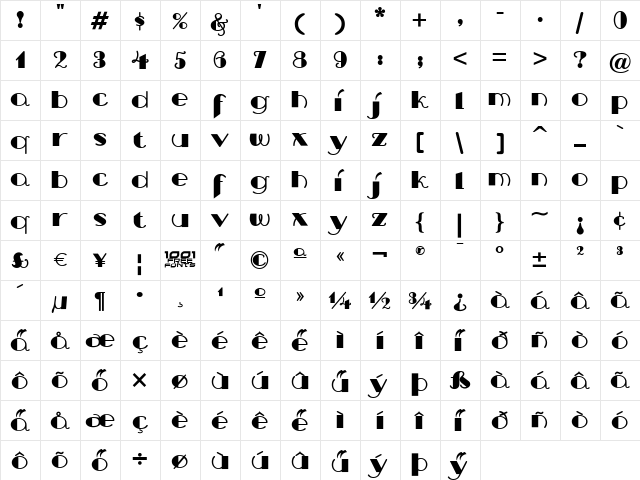
Nip And Tuck NF Regular
Design Context for Nip And Tuck NF Typeface
Nip And Tuck NF is a composed and adaptable typeface that performs quietly and consistently across a wide range of design contexts.